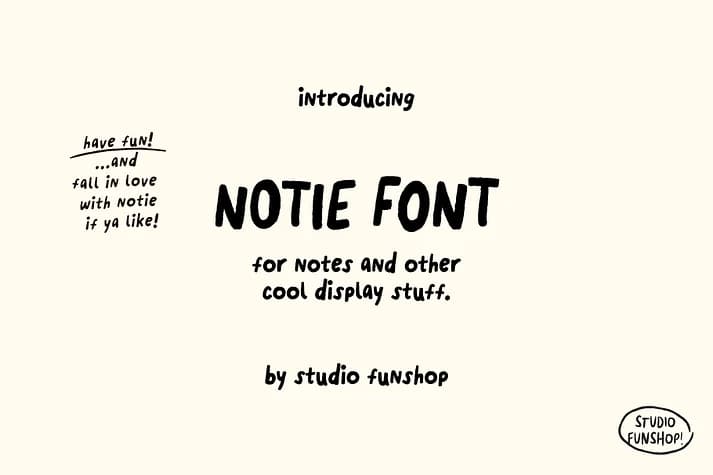
Notie by Studio Funshop is a handwritten display font with a loose, organic feel that works equally well as a standalone headline or layered into complex compositions. The natural texture comes through in every letter, giving your work that approachable, just-written-by-hand quality that readers instinctively trust over sterile typefaces.
This font shines on invitation suites for intimate events, especially wedding announcements and birthday celebrations where warmth and personality matter more than formality. You'll find it invaluable for hand-lettered product packaging too, from cosmetic labels to artisan chocolate boxes and boutique bath product branding. It's equally at home creating custom greeting cards that feel genuinely personal rather than mass-produced, and works beautifully for event signage, craft fair nameplates, and hand-written-style quote graphics where authenticity strengthens the message.
The font includes a full character set with uppercase, lowercase, numerals, and punctuation. What really sets it apart is the alternates for individual letters: built-in variation that means you can mix and match letterforms within the same word to dial up the handmade feel and avoid that repetitive machine-made look that some display fonts can't escape. Head over to Creative Fabrica to add Notie to your design toolkit.
Notie Font is a display font that shines as a display or heading face. Pair it with a clean sans-serif or serif font for body text โ the contrast creates a clear hierarchy while the two styles stay balanced and easy to read.